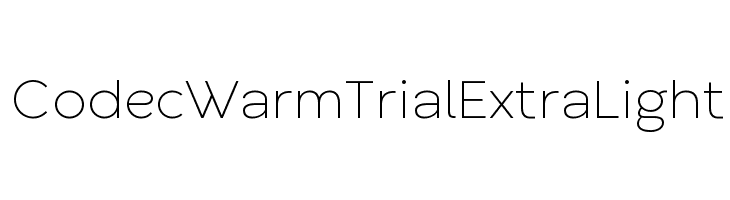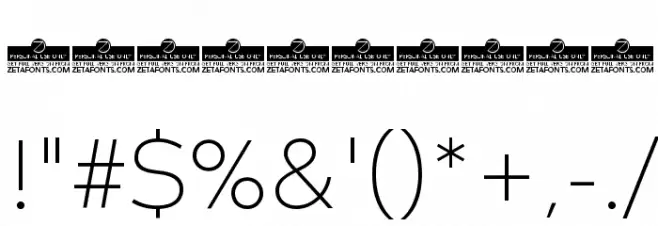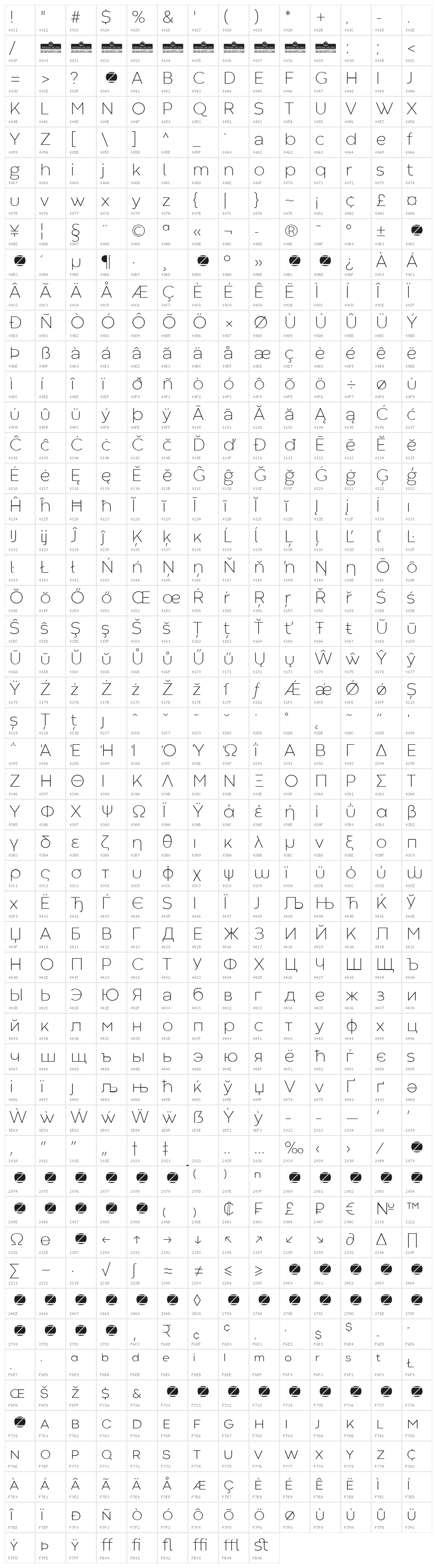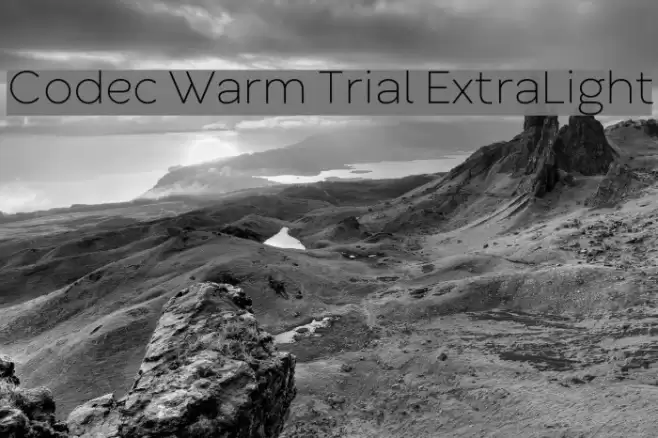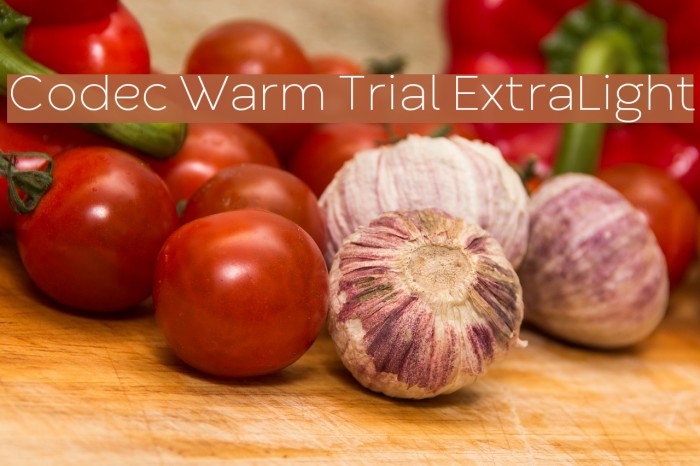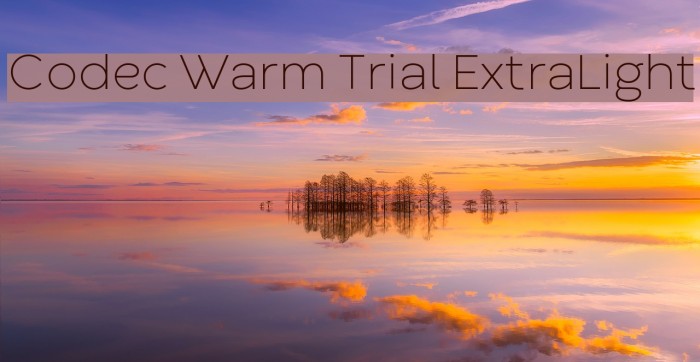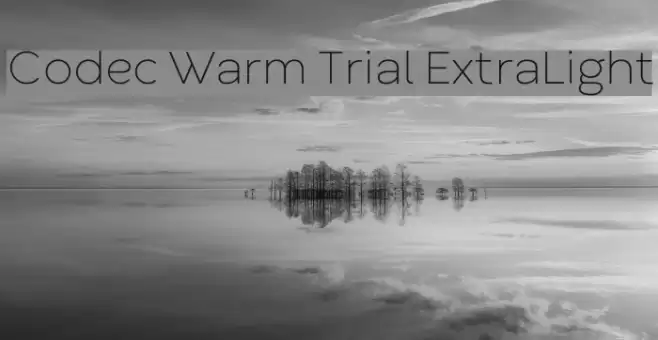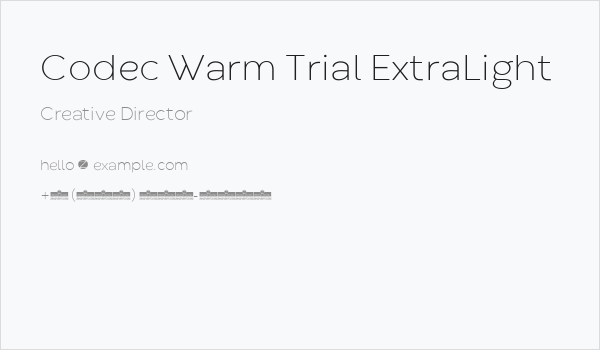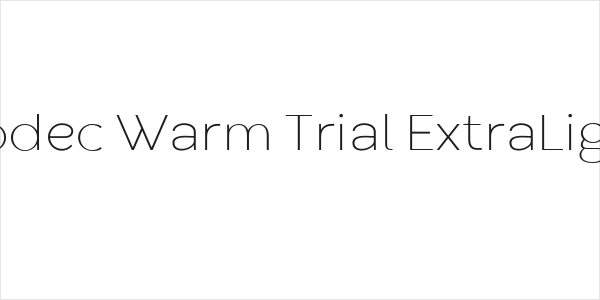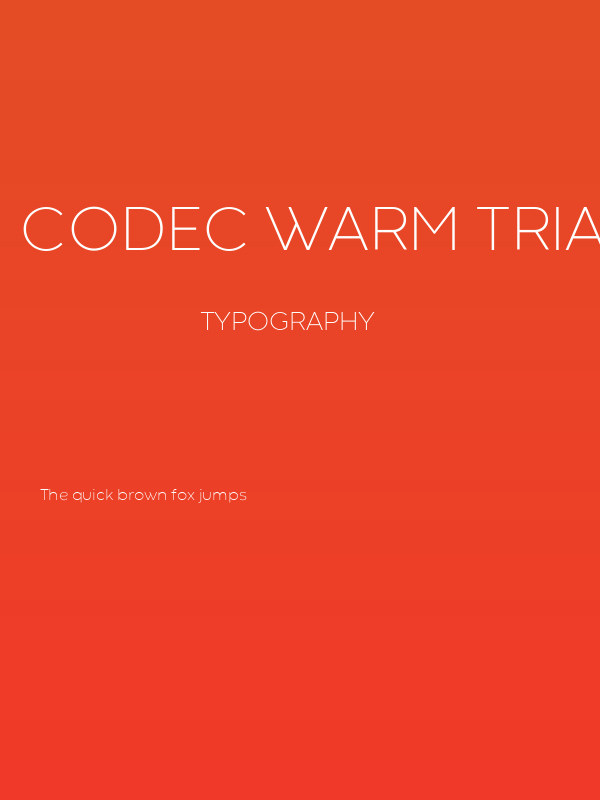
Codec Warm Trial ExtraLight Font
Codec Warm Trial ExtraLight Description
This typeface features a clean and minimalist design, characterized by its thin and uniform stroke width. The letters are crafted with a modern aesthetic, offering a sleek and sophisticated appearance. The uppercase and lowercase characters are well-proportioned, maintaining a consistent line weight throughout. The numerals and special characters are designed to complement the overall style, providing a cohesive look. This font's simplicity and elegance make it suitable for a variety of applications, from digital interfaces to print media. Its readability and clarity are enhanced by the generous spacing between characters, ensuring legibility across different sizes and contexts.
| Proposed Projects | Ideal for modern branding, digital interfaces, editorial design, and minimalist print layouts. |